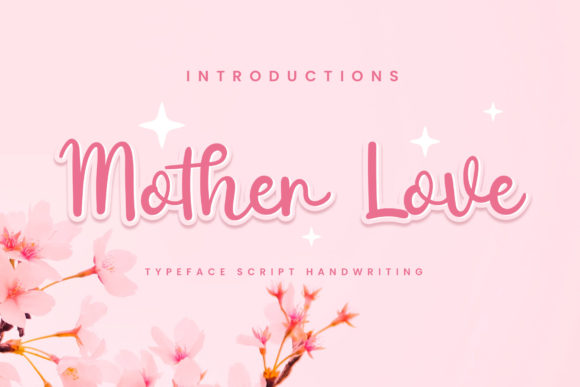
In a world where words come alive and emotions run deep, Mother Love Font emerges not just as a mere typeface, but as an enchanting symphony of elegance and grace. This script font, meticulously crafted by YanStudio, is a testament to the beauty of handwritten artistry, inviting you to embark on a creative journey where your designs bloom with a touch of delicate charm.
With Mother Love Font, your words are transformed into breathtaking works of art, each letter dancing across the page with its own unique rhythm and flair. Its carefully balanced strokes evoke a sense of harmony and sophistication, making it the perfect choice for projects that demand a touch of timeless allure.
Imagine your wedding invitations adorned with the flowing script of Mother Love, the vows you exchange enveloped in a shroud of elegance. Let your logo designs radiate a classic charm, as the intricate details of Mother Love entwine to create a visual masterpiece. Unleash your creativity with Mother Love's adaptable style, effortlessly blending into a myriad of design aesthetics, from vintage-inspired to modern minimalist.
Discover the art of seamless connectivity with Mother Love. Its letters intertwine effortlessly, creating an uninterrupted flow that captivates the eye and draws the reader into your message. Each word becomes a visual melody, a symphony of curves and flourishes that paint a picture worth a thousand words.
With Mother Love, you'll embark on a journey where creativity knows no bounds. Whether you're designing stunning social media posts, captivating marketing materials, or heartfelt greeting cards, this font becomes your muse, your trusted companion in the realm of visual expression.
Dive into the depths of Mother Love's versatility and let your imagination run wild. Its delicate nature lends itself effortlessly to a myriad of creative endeavors, from Cricut projects that whisper with charm to digital designs that radiate sophistication. The possibilities are endless, awaiting your artistic touch to bring them to life.
Mother Love is more than just a font; it's an invitation to embark on a creative odyssey, where your designs transcend the ordinary and take flight into the realm of the extraordinary. Its beauty is undeniable, its elegance unmatched. Let Mother Love be your guiding light, illuminating your path towards design brilliance.